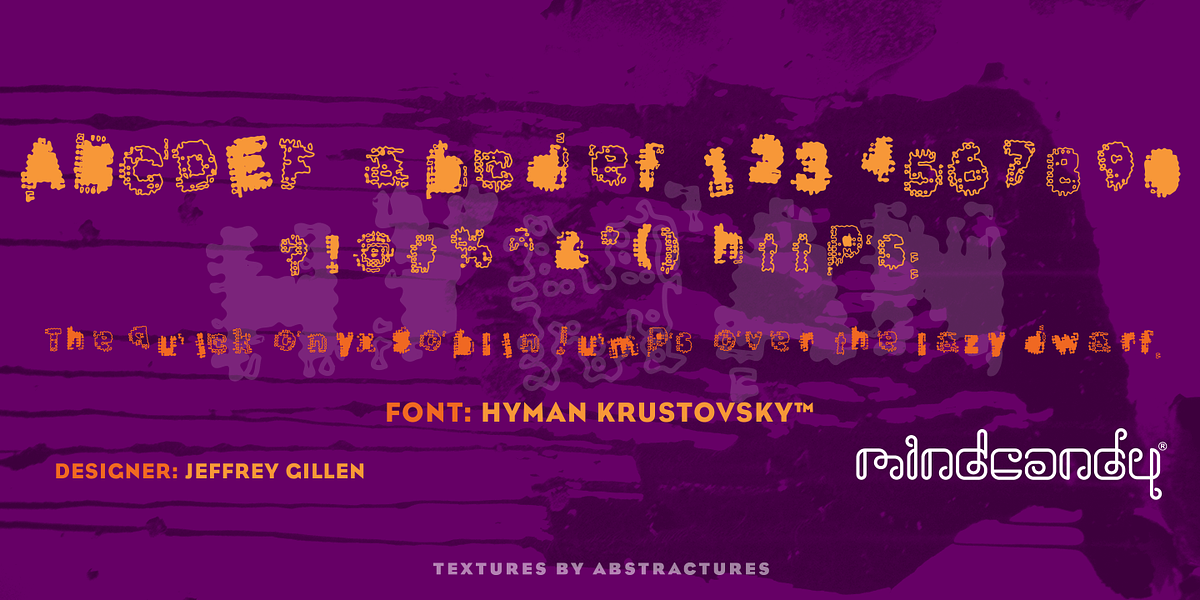
Hyman Krustofsky™
This bouncy pixel font is characterized by its intricate design and playful personality. Its novelty nature makes it suitable for a variety of creative applications such as graphic design, game development, and branding.